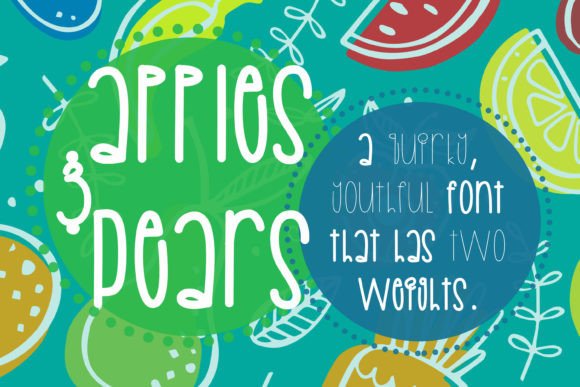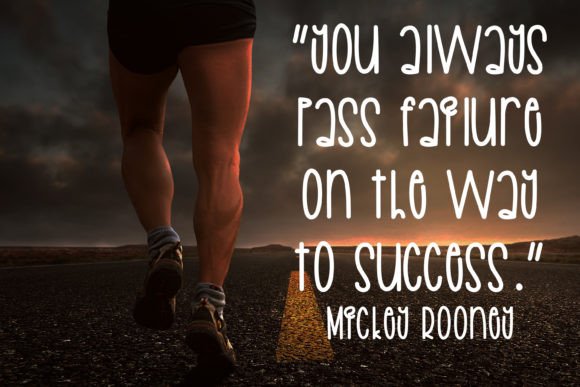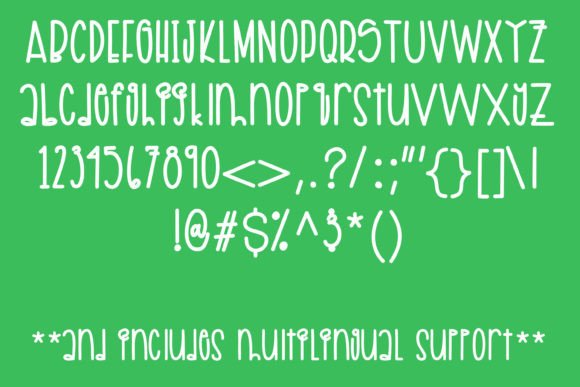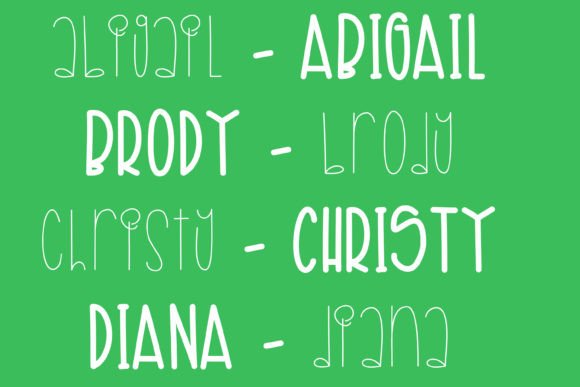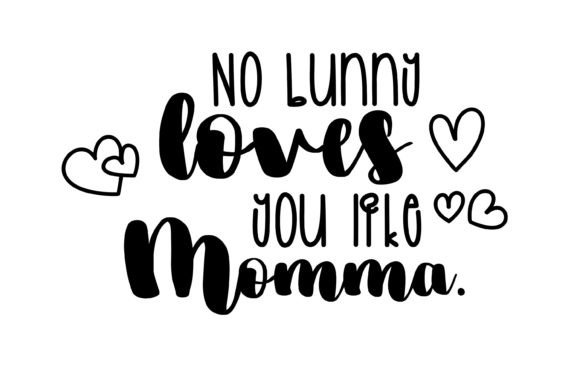
Apples and Pears Font
Apples and Pears Handwritten Font – Cute and Youthful Typeface
The Apples and Pears Handwritten Font is a fun and youthful script typeface designed to add energy and charm to your projects. With its casual handwritten strokes and playful style, it offers a lighthearted touch that works beautifully across print and digital designs. Whether you’re creating posters, greeting cards, or digital graphics, this font brings personality and creativity.
A Handwritten Script with Playfulness
The Apples and Pears Handwritten Font blends smooth curves with a fresh handwritten rhythm, giving your designs a natural and inviting look. Its youthful energy makes it a standout, while its balanced design ensures readability. Because of this, it adapts well to both personal and professional creative needs.
Perfect for Crafts and Greeting Cards
One of the most common uses of the Apples and Pears Handwritten Font is in greeting cards, posters, and crafts. Its cheerful strokes make designs feel more personal and approachable. At the same time, it pairs beautifully with other script fonts, adding variety and charm to multi-font projects.
The Apples and Pears Handwritten Font adapts beautifully to many different uses. From digital artwork and social media graphics to product packaging and event signage, it provides a handwritten charm that feels fresh and fun. Its casual yet neat style ensures success in both digital and print projects.
Why Designers Love Apples and Pears Font
Designers love the Apples and Pears HandwrittenFont for its mix of playfulness and usability. It has enough personality to make creative projects stand out, yet it remains versatile for professional contexts. This balance makes it a must-have in any creative toolkit.
In summary, the Apples and Pears HandwrittenFont is a cute, youthful, and versatile typeface. With its playful handwritten strokes, quick installation, and wide usability, it is perfect for greeting cards, crafts, posters, and digital designs. Don’t miss the chance to download Apples and Pears HandwrittenFont and give your projects a fresh, fun personality.